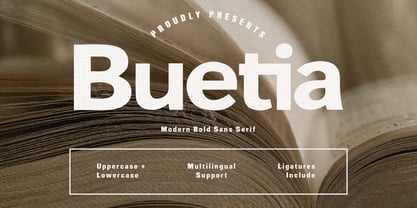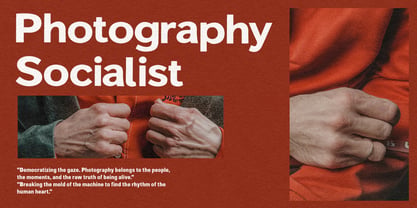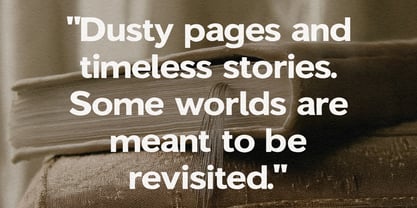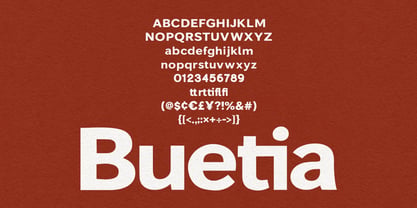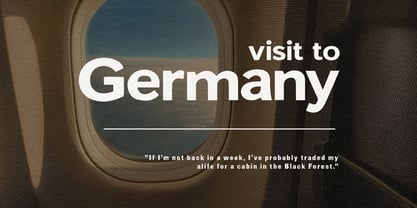
MC Buetia
par Maulana Creative
La famille de polices MC Buetia a été conçue par Gilang Maulana et publiée par Maulana Creative. MC Buetia contient 1 styles. En savoir plus sur cette famille
Buetia is a high-impact, modern bold sans serif font that strikes the perfect balance between contemporary minimalism and classic sophistication. Featuring clean lines and a solid weight, it is designed for maximum legibility and visual strength. Whether you are crafting editorial layouts, cinematic, or branding, Buetia provides a "timeless" feel that pairs beautifully with photography and textured backgrounds. It comes equipped with uppercase, lowercase, multilingual support, and unique ligatures, making it a versatile powerhouse for any creative project.
Concepteurs: Gilang Maulana
Fonderie: Maulana Creative